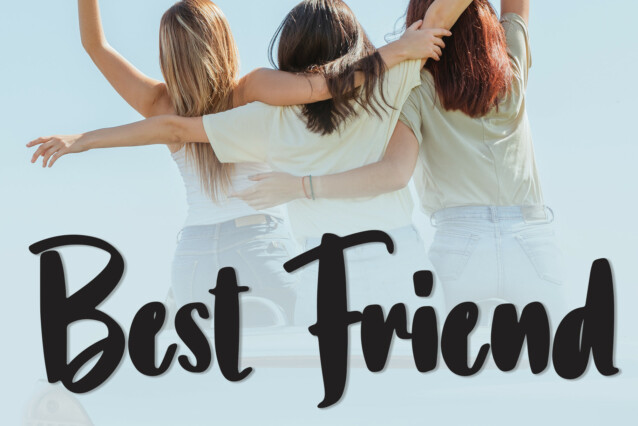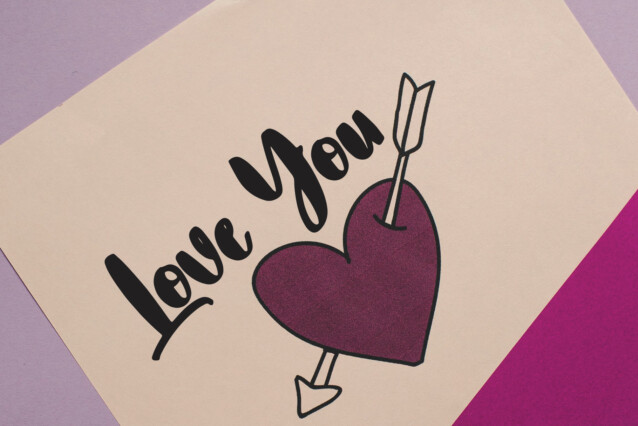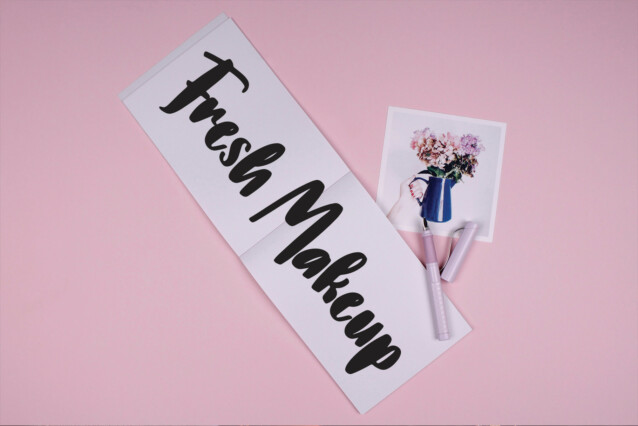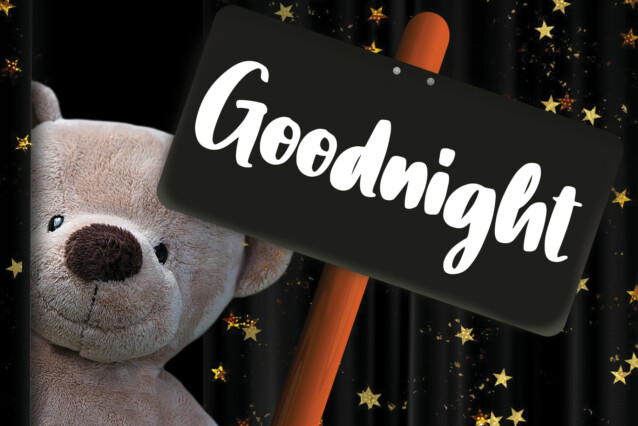
Night Smile Script Font
Night Smile Script Font is a fresh and neat handwritten font. Its bold characters are perfect for adding a special touch to any design you wish to create!